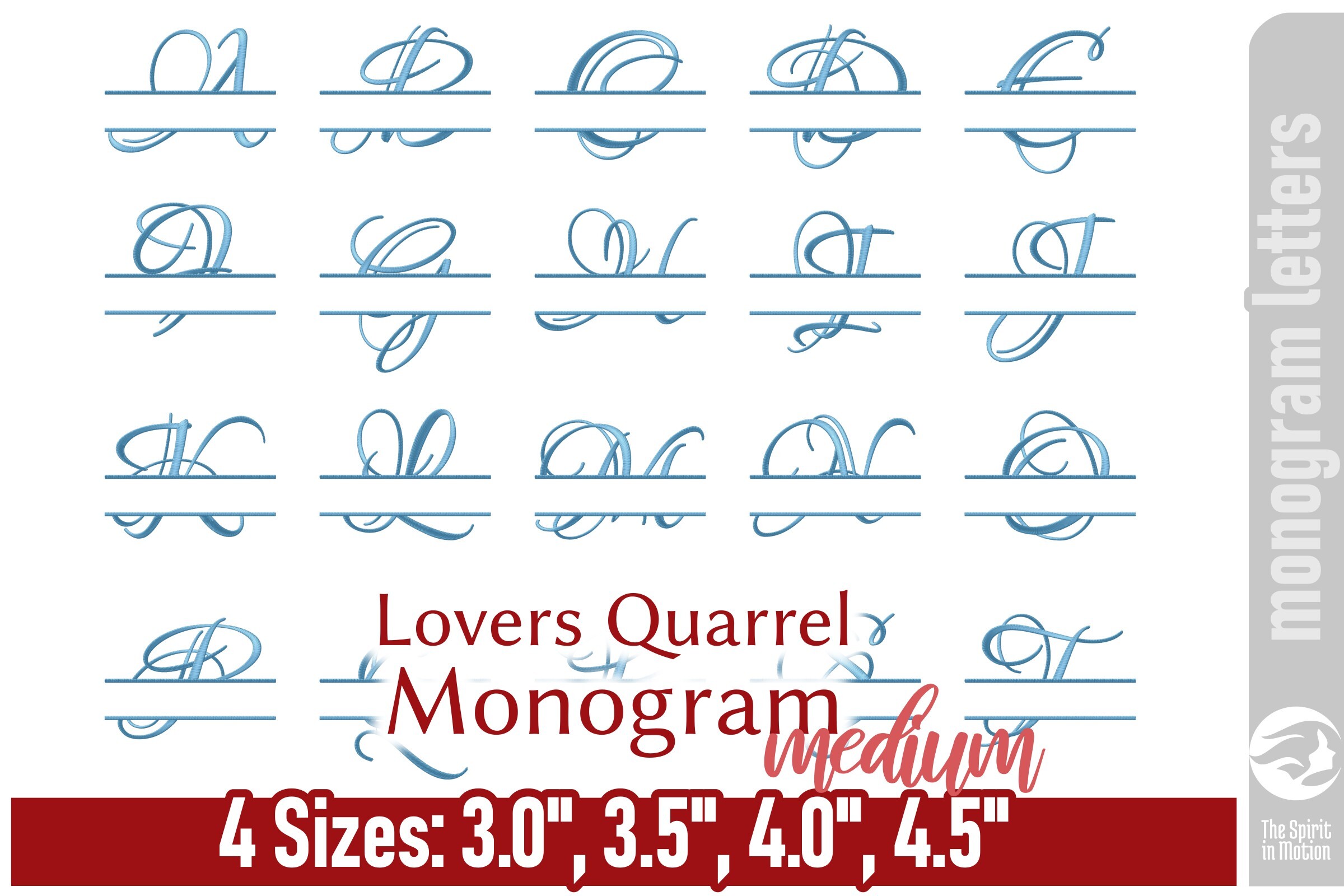
LQ Monogram Embroidery Font - Medium
The Lovers Quarrel Split Frame Monogram Font boasts a sleek design marked by smooth lines and a strategically positioned center space intended for personal customization. Employ it to introduce a dash of timeless sophistication to your towels, totes, or even home décor. It serves as the perfect addition to any embroidery project seeking to make a statement bound in tradition, class, and individualistic expression. Please Note: The sizes and stitches information shown below is for "A" and "a" in each size. This is provided as a summary of what is available in this download file. For the full dimension details of the 122 letters in this set, click on the More Sewing Info (PDF) button on this page.